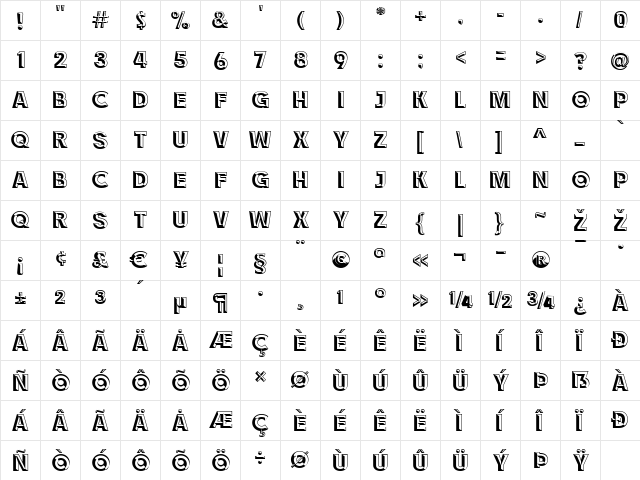
RACE1 Brannt Chiseled NCV Regular
Design Context for RACE1 Brannt Chiseled NCV Typeface
RACE1 Brannt Chiseled NCV offers clean, dependable letterforms without strong stylistic allegiance, making it a practical choice for designers who need flexibility.
Pro Tip: Pair RACE1 Brannt Chiseled NCV with a font of contrasting weight or personality to build a more expressive typographic hierarchy.